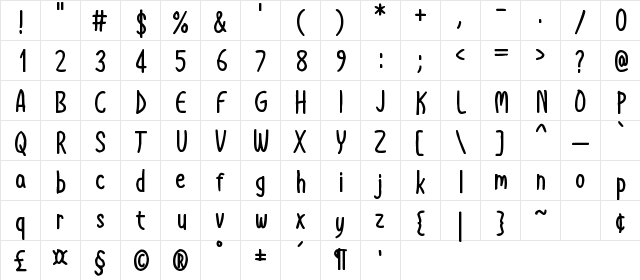
Autumn Happiness Regular
Design Context for Autumn Happiness Typeface
Autumn Happiness is a composed and adaptable typeface that performs quietly and consistently across a wide range of design contexts.
Pro Tip: Use Autumn Happiness in both headline and body roles to test its range before committing to a single application.